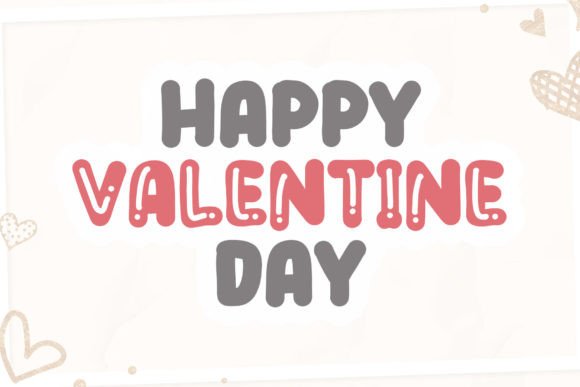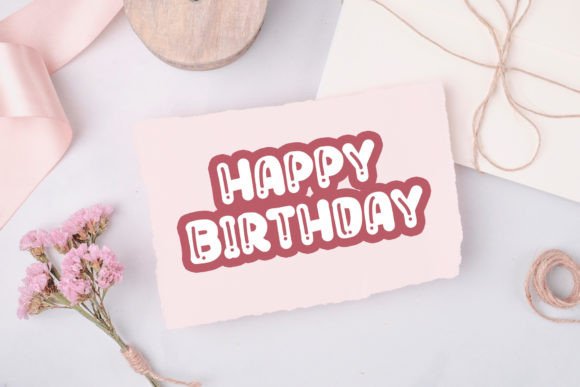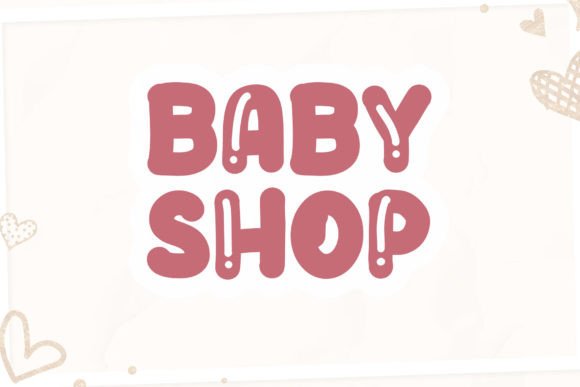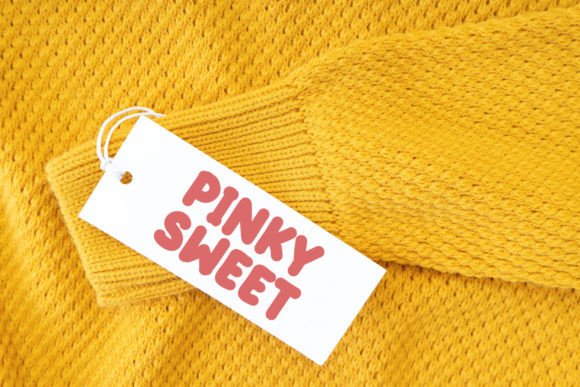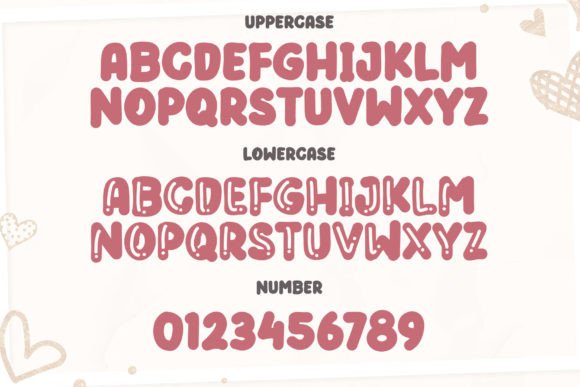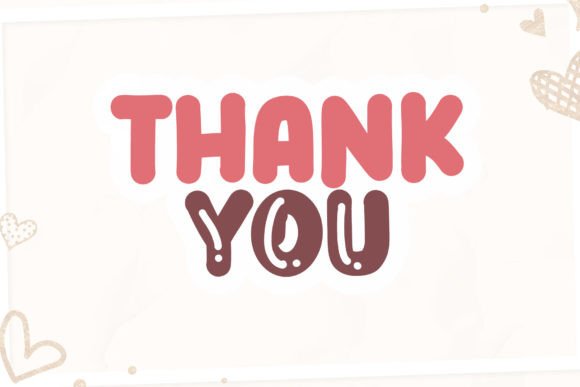
Introduction to Love Dear Font
Love Dear is a cute and fun display font.
This original look will appeal to a wide range of crafty ideas, from letterheads and titles to stationery .
Key Features of Love Dear Font